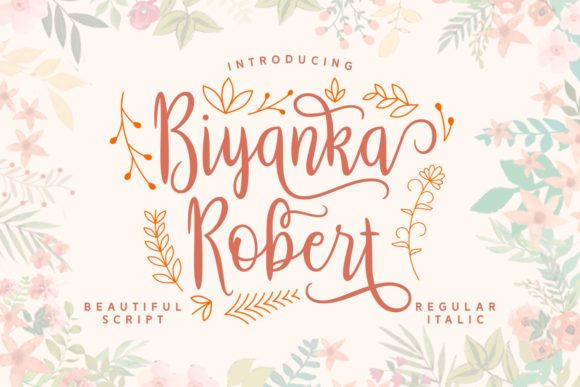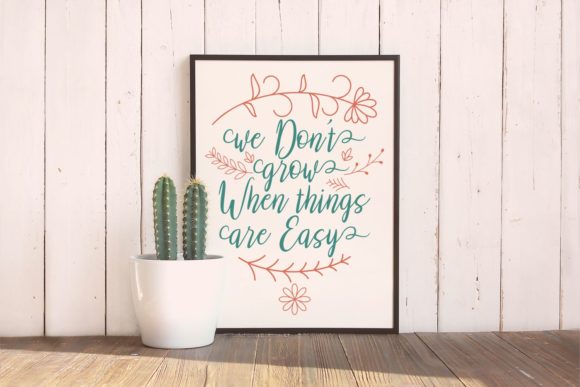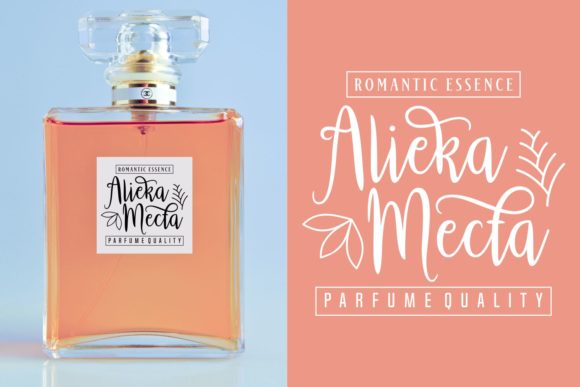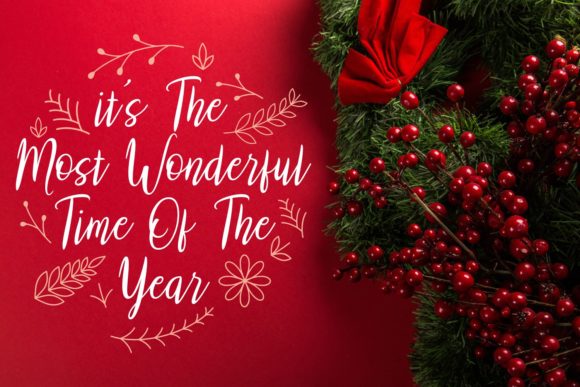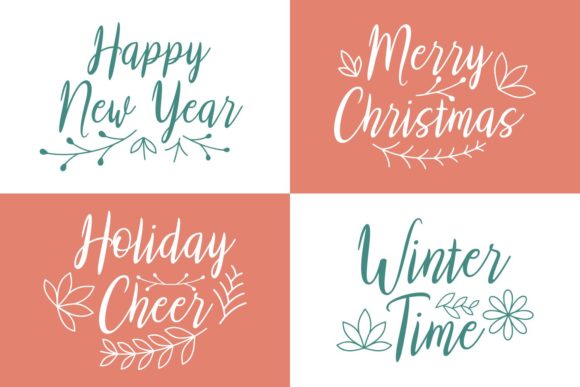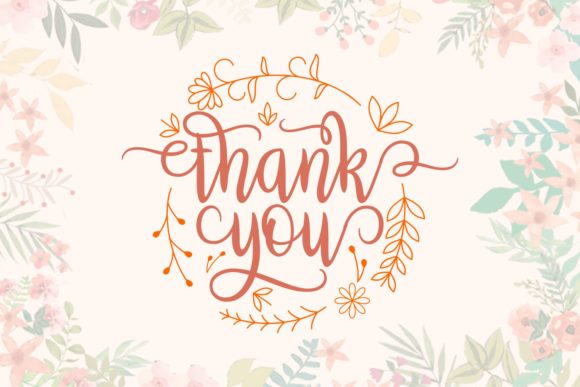
HomeScript FontsBiyanka Robert Font Script Fonts Biyanka Robert Font FacebookXPinterestWhatsApp Biyanka Robert Font Poster 2 Biyanka Robert Font Poster 3 Biyanka Robert Font Poster 4 Biyanka Robert Font Poster 5 Biyanka Robert Font Poster 6 Biyanka Robert Font Poster 7 About Biyanka Robert Font Biyanka Robert is the ideal crafting font with its lovely, PUA swashes! DOWNLOAD ON CREATIVE FABRICAThis font is sold and delivered by Creative Fabrica. Font Canyon may earn a commission if you buy through this link. People also explored Youth Moon Font Morison Valentine Signature Font Berryspread Font Beautiful Font Right Paths Font Habanera Font Ki Nidang Baby Witch Font 300 0 TagsBiyanka Robert Font Previous articleIntervensi FontNext articleRosemary Font LEAVE A REPLY Cancel reply Comment: Please enter your comment! Name:* Please enter your name here Email:* You have entered an incorrect email address! Please enter your email address here Website: Save my name, email, and website in this browser for the next time I comment. Personal Use Free Avagan Personal Use Free Read more about this font Electroharmonix Personal Use Free Read more about this font Bestlife Personal Use Free Read more about this font UseYourImagination Personal Use Free Read more about this font BLOG Where to Buy American Fonts Online in 2024 Where to Buy American Fonts Online: The Ultimate Guide for 2024 Looking for the perfect American font to elevate your design projects? You're in the... Exploring Font Trends Best Fonts for YouTube Videos: Make Your Thumbnails Stand Out Best Fonts for T-Shirt Design – Top 2025 Picks